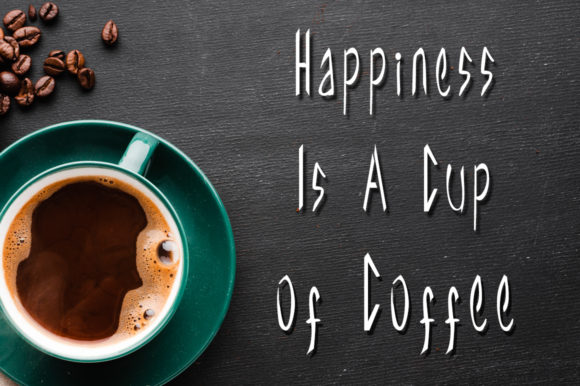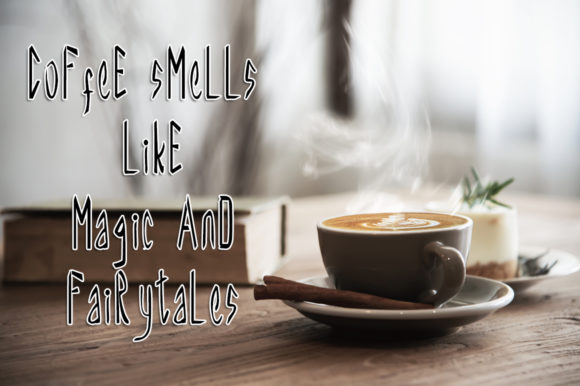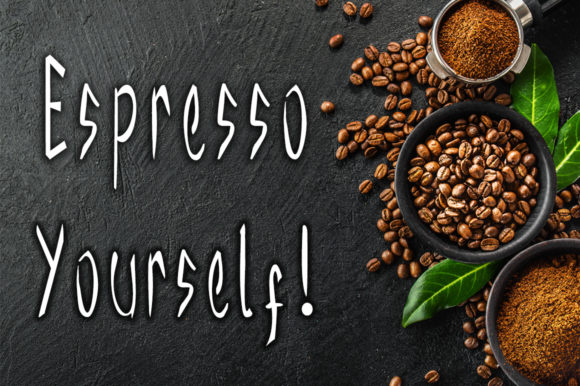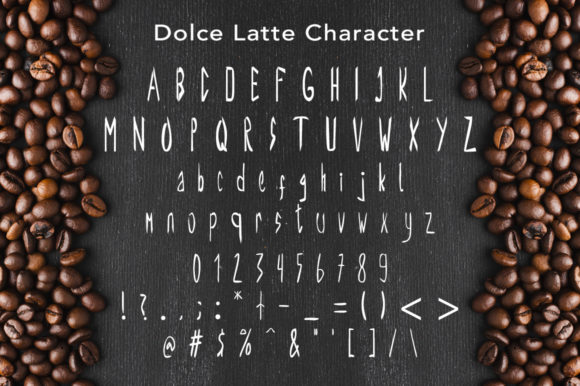
About Dolce Latte Font
Dolce Latte is a font that exudes cuteness and casual charm, making it a perfect choice for a wide range of design projects. Its handwritten style enhances your creations, adding a touch of playfulness and ease that captivates the eye.
With its cute and casual essence, Dolce Latte brings a sense of warmth and comfort to your designs. Whether you’re working on wedding invitations, stationary art, social media posts, or any other project, this font elevates each creation with its delightful allure.
Dolce Latte’s handwritten appearance adds a personal and unique touch to your designs, making them feel genuine and special. It’s like a brush of creativity that infuses your creative ideas with a sense of coziness.
Incorporating Dolce Latte into your designs allows you to explore a wide range of creative possibilities. Its adaptability serves as a canvas for your imagination, empowering you to create visually stunning and captivating designs.
The beauty of Dolce Latte lies in its ability to bring a sense of joy and comfort to any project. Whether it’s creating gorgeous wedding invitations or eye-catching social media posts, this font is the perfect choice.
Fall in love with Dolce Latte’s cute and casual style as it transforms your ideas into breathtaking designs that exude charm and ease.
In summary, Dolce Latte is more than just a font; it’s a cute and casual companion that enhances your creative ideas. Embrace its versatility and notice how it adds a touch of magic to your projects. With Dolce Latte, your designs become true expressions of beauty and authenticity, leaving a lasting impact on all who encounter them. Let Dolce Latte be the font that brings a sense of playfulness to your designs, creating a world of coziness and captivating the hearts of your audience.